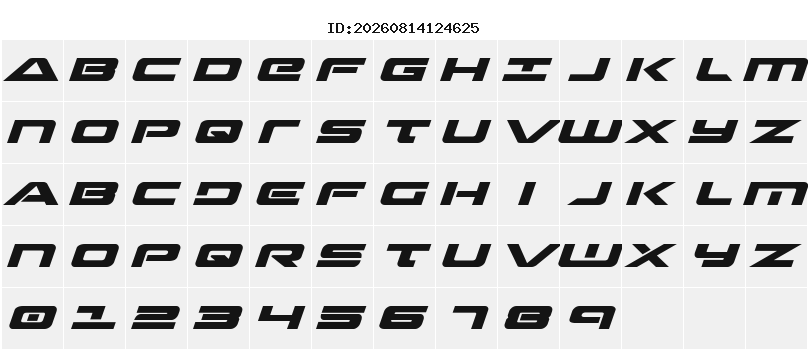
Strikelord Expanded Italic Preview
• Font Name: Strikelord Expanded Italic
• Font Style: Expanded Italic
• Full Font Name: Strikelord Expanded Italic
About Strikelord Expanded Italic.ttf
Strikelord Expanded Italic.ttf is a modern, elegant sans-serif font designed for ultimate readability and visual harmony. Perfect for branding, headlines, web design, and print materials.